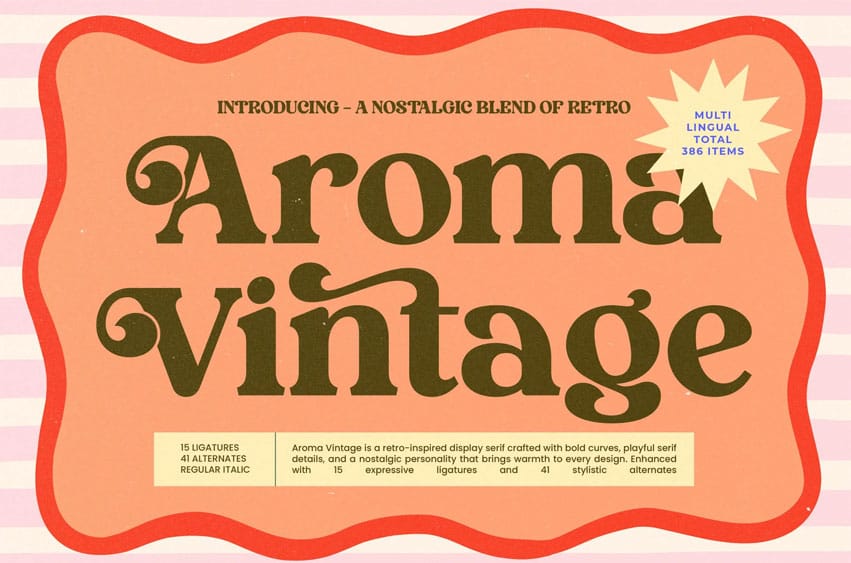
Aroma Vintage Font is a retro-inspired display serif crafted with bold curves, playful serif details, and a nostalgic warmth that instantly elevates visual storytelling. Designed to blend vintage charm with expressive modern character, this typeface brings an inviting personality to branding, packaging, posters, editorial layouts, and retro-inspired design projects.
With 15 expressive ligatures and 41 stylistic alternates, Aroma Vintage gives you the freedom to customize typographic looks effortlessly. Available in Regular & Italic styles and supporting multilingual characters, it’s a solid choice for designers seeking bold aesthetics rooted in nostalgia. FEATURE :